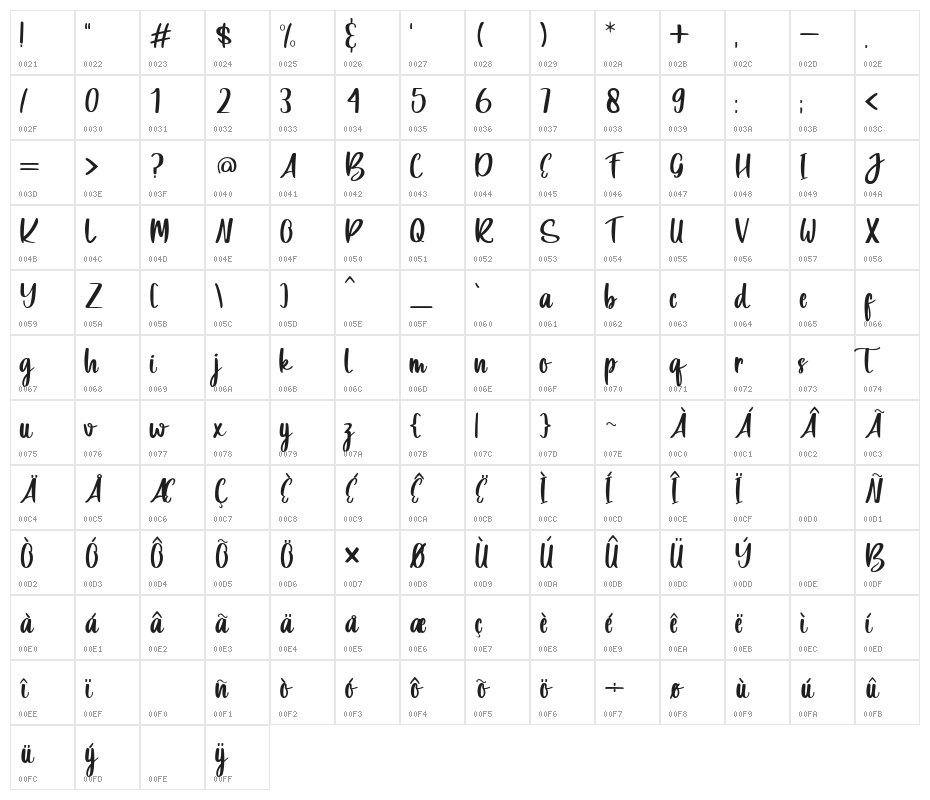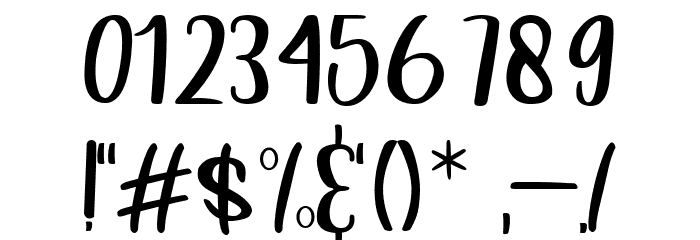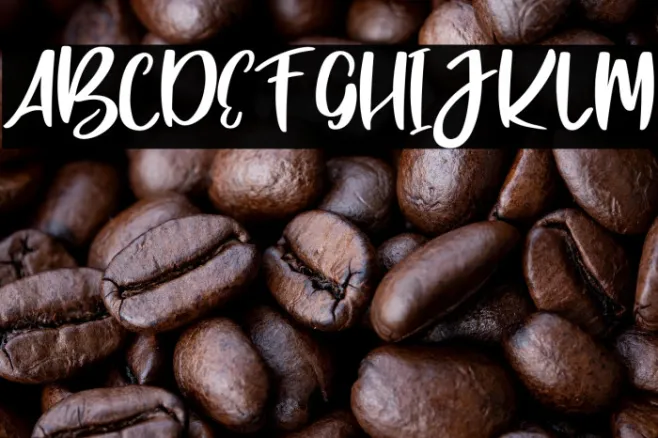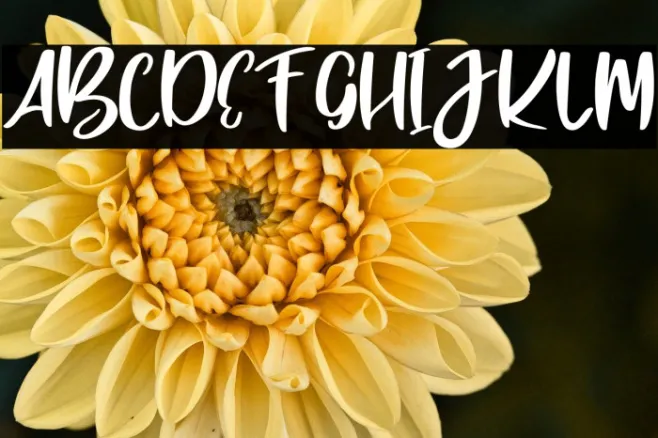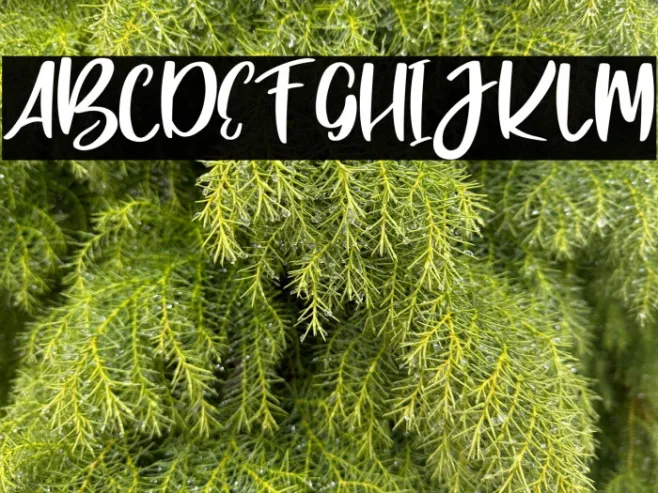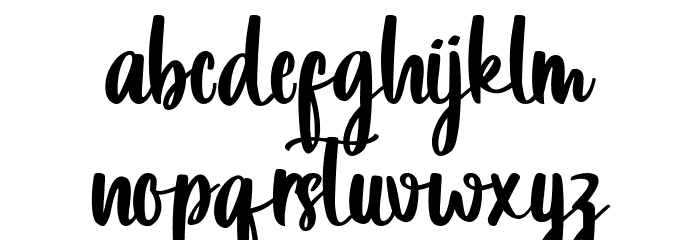
Speak Out Font
Speak Out Description
This font exudes a lively and dynamic energy with its bold, handwritten style. The characters are crafted with a playful flair, featuring smooth curves and a slightly irregular baseline that adds to its casual charm. The uppercase letters are tall and commanding, while the lowercase letters maintain a consistent flow, making it highly legible. The numbers and special characters are designed to match the overall aesthetic, ensuring a cohesive look across all text. This font is perfect for projects that require a personal touch, such as invitations, greeting cards, or branding materials that aim to convey a sense of warmth and approachability.
| Proposed Projects | Ideal for invitations, greeting cards, branding, and any project needing a personal touch. |